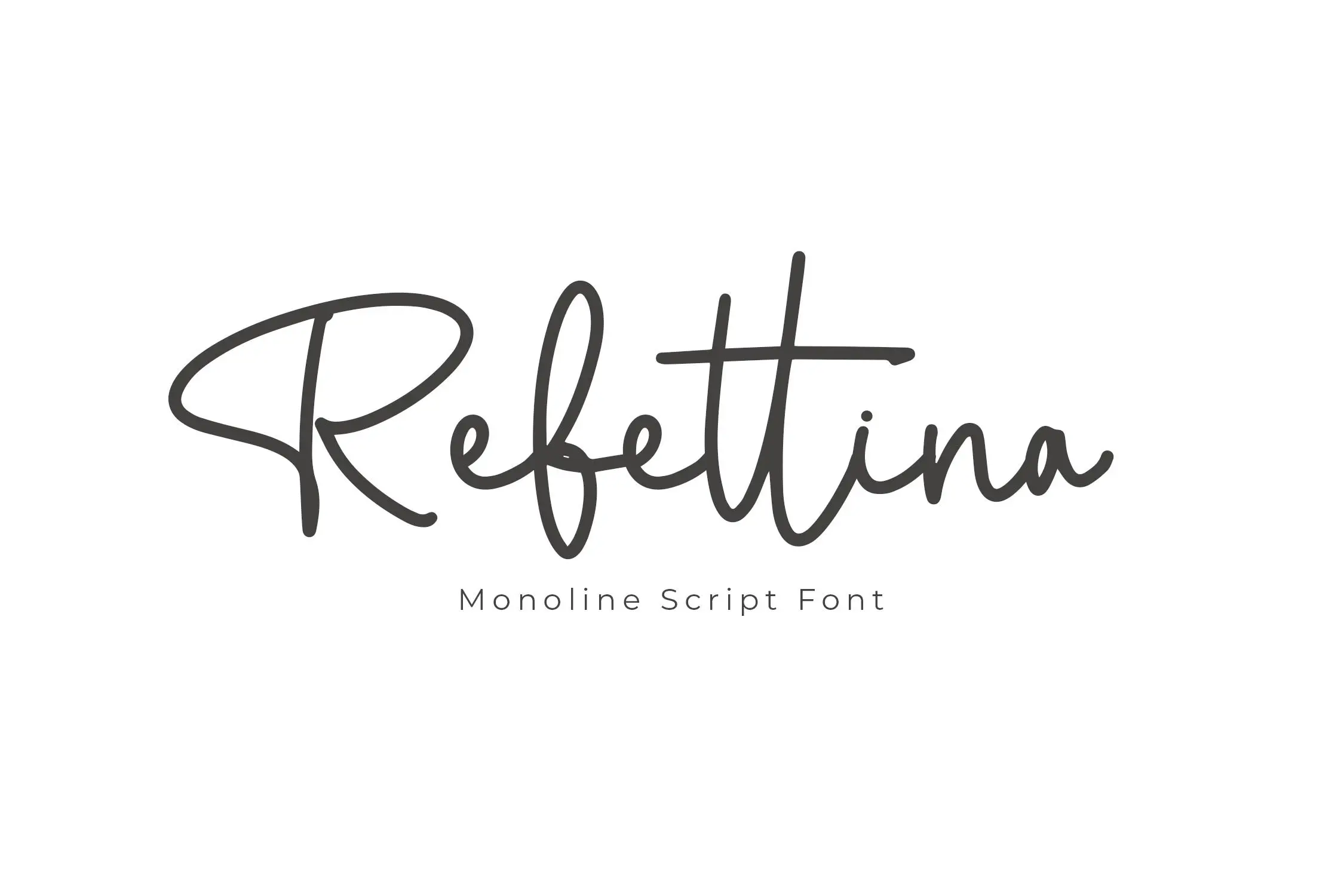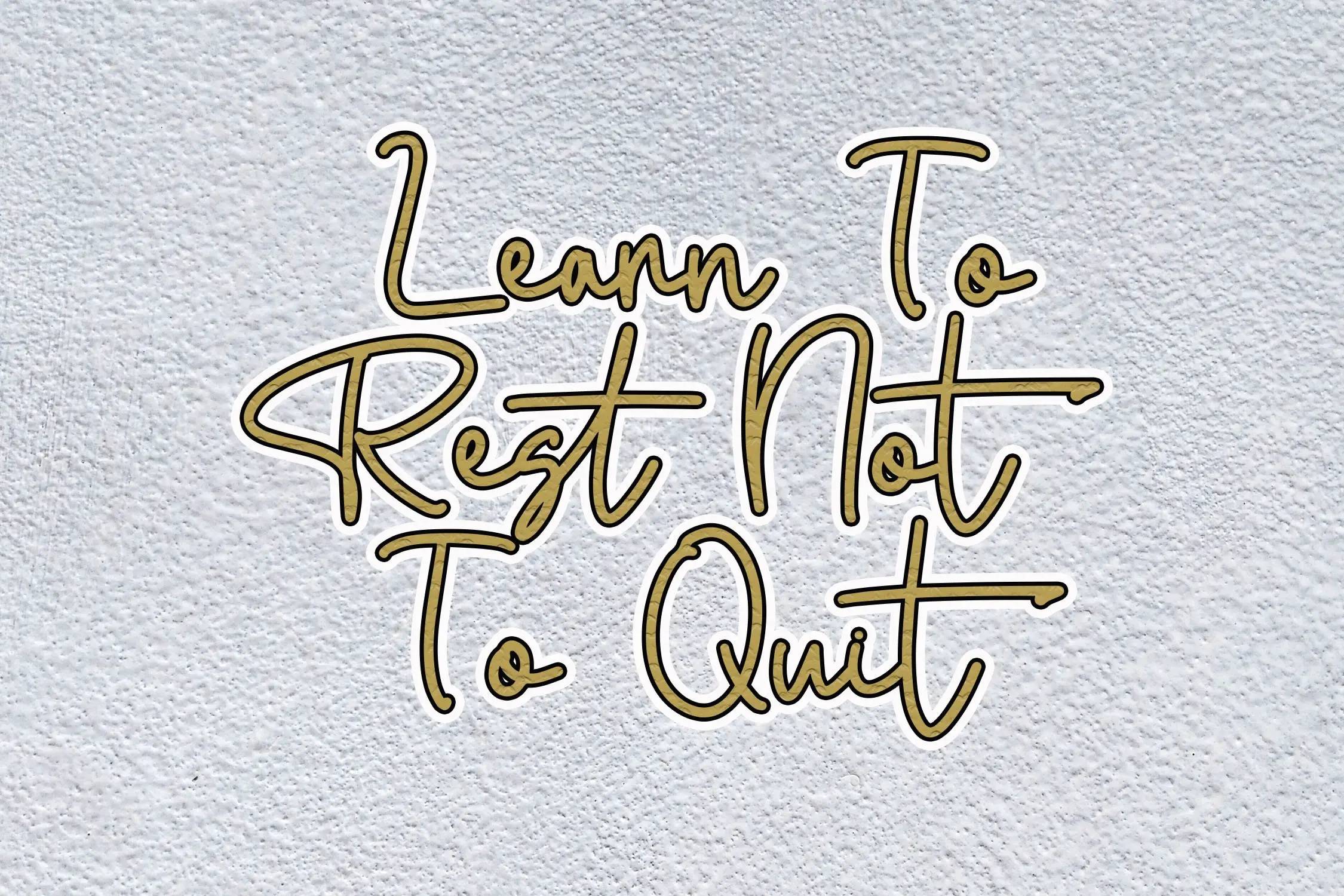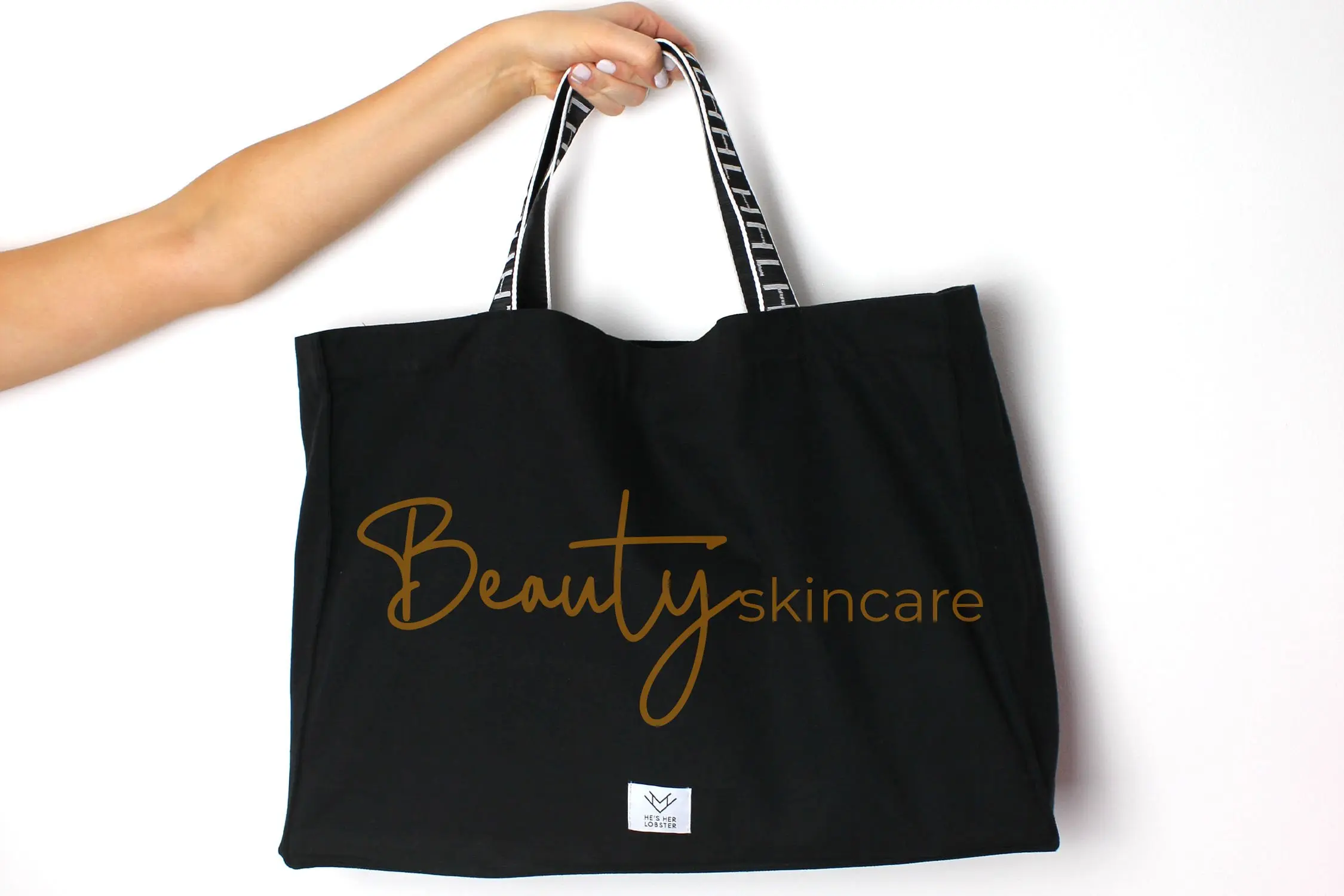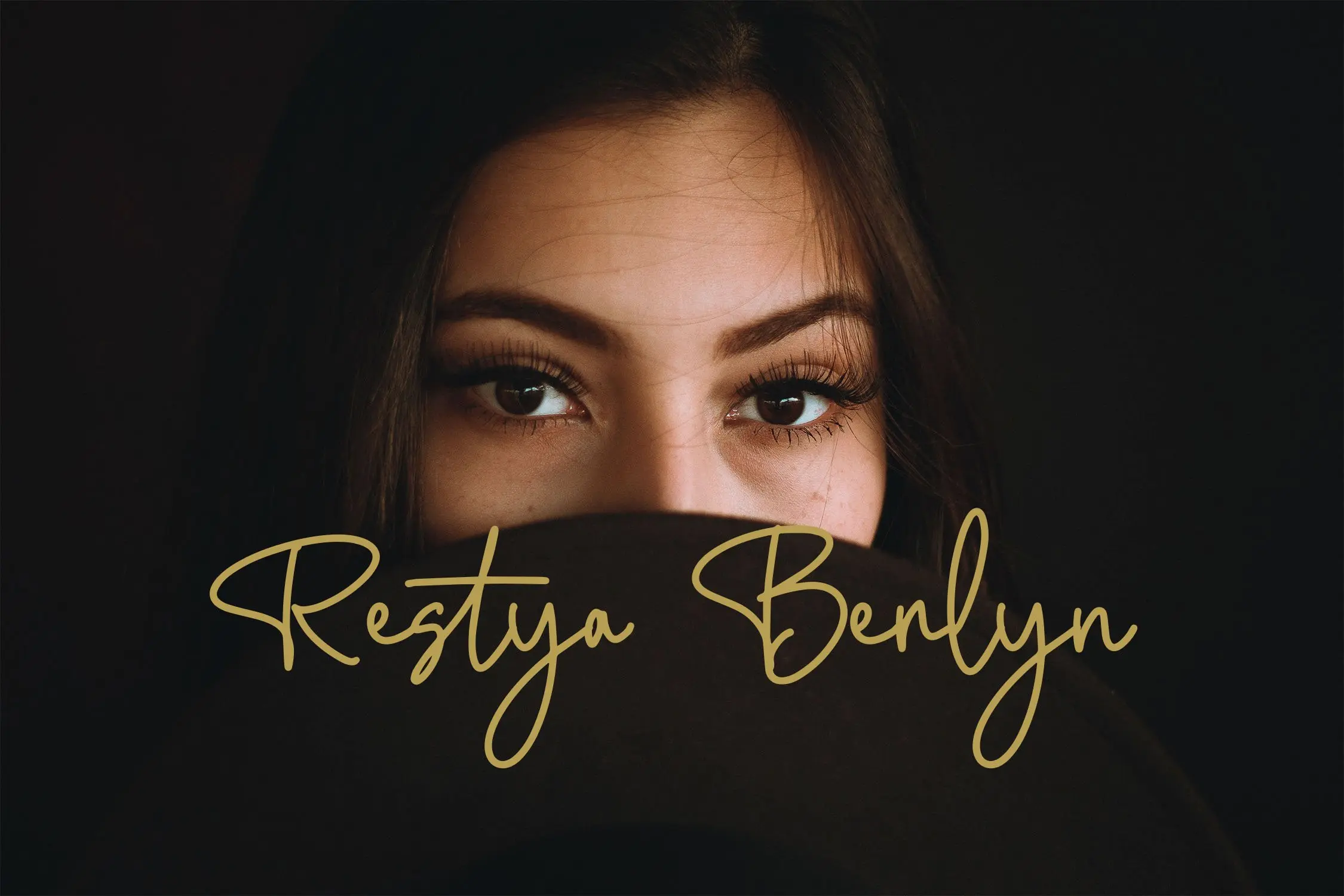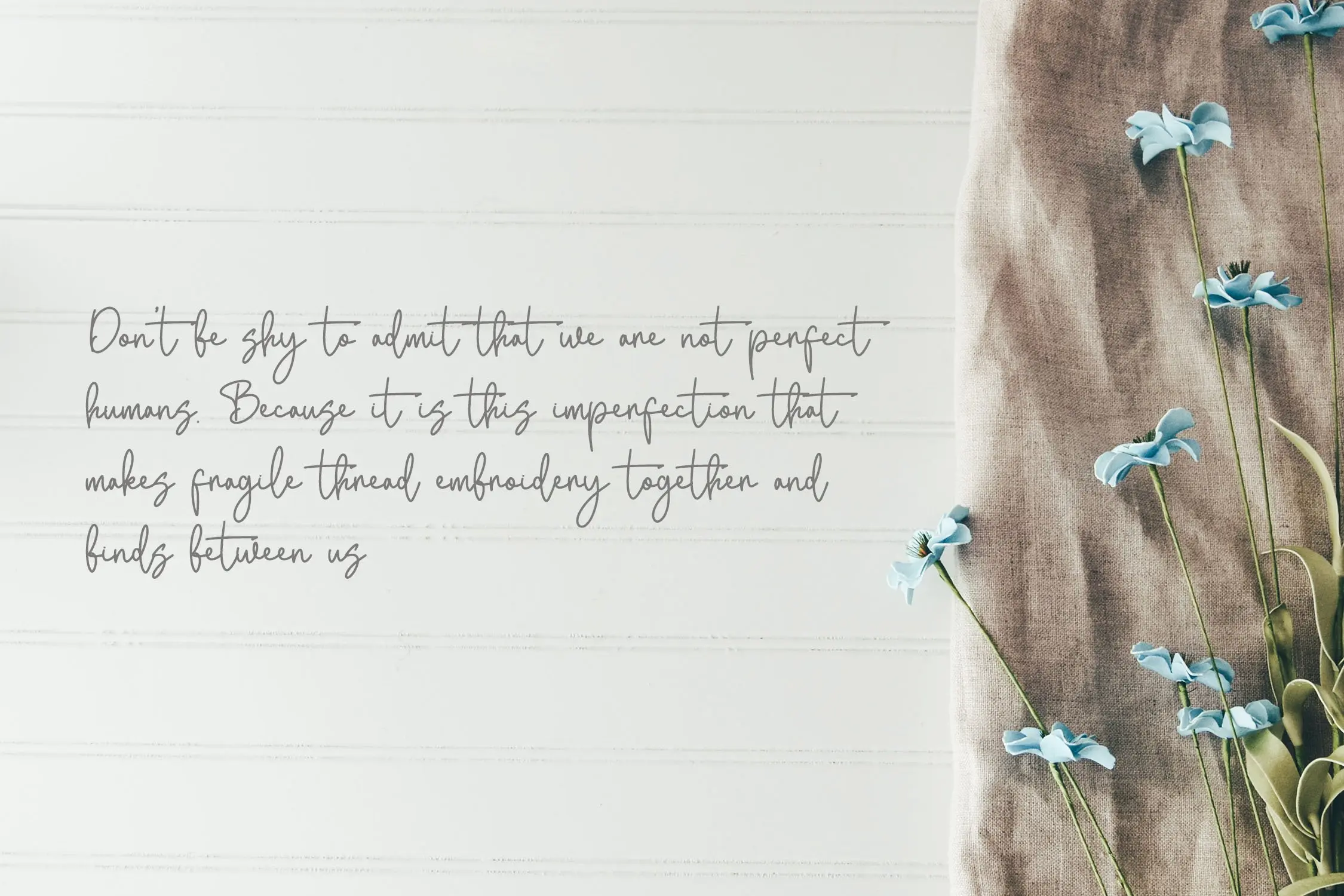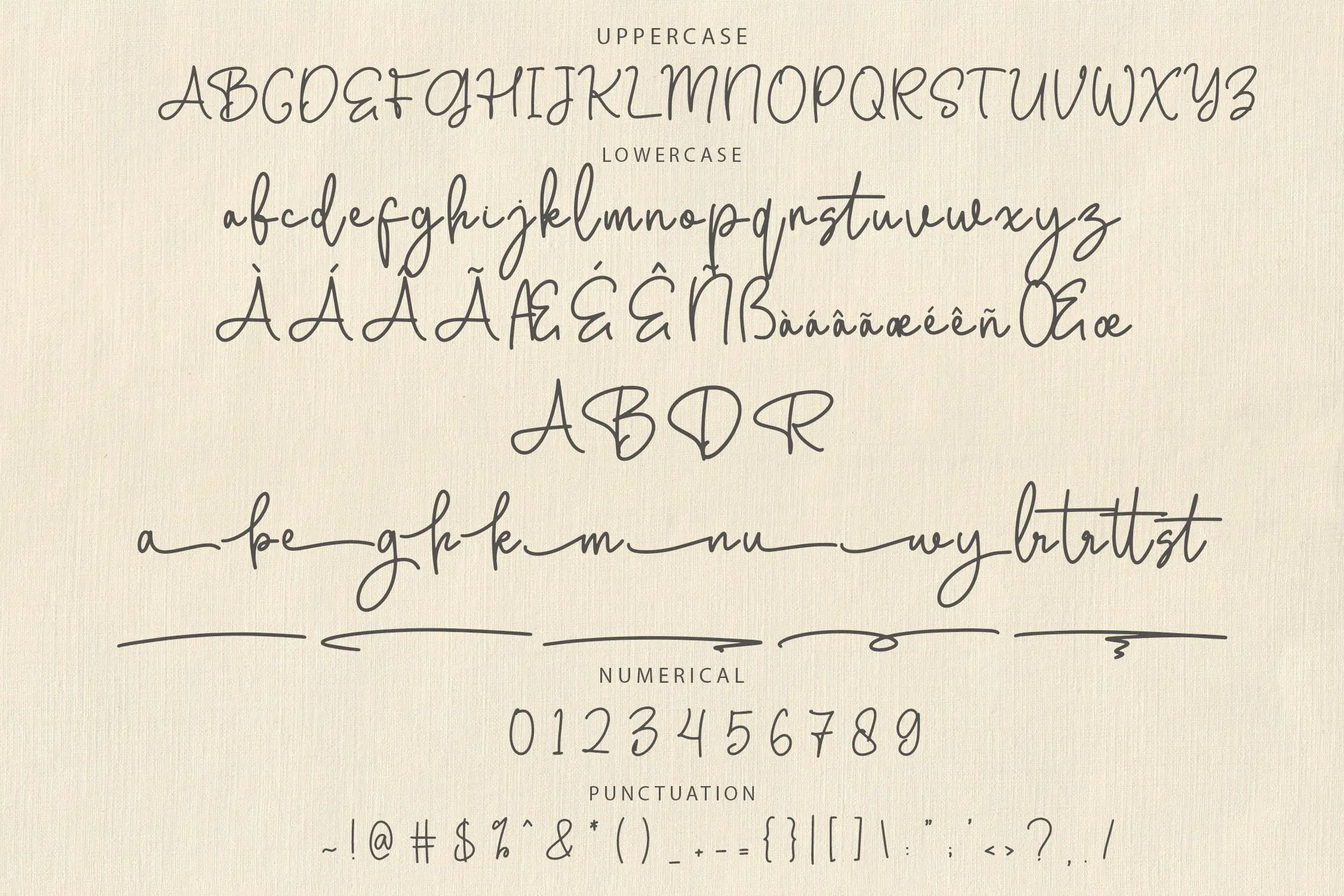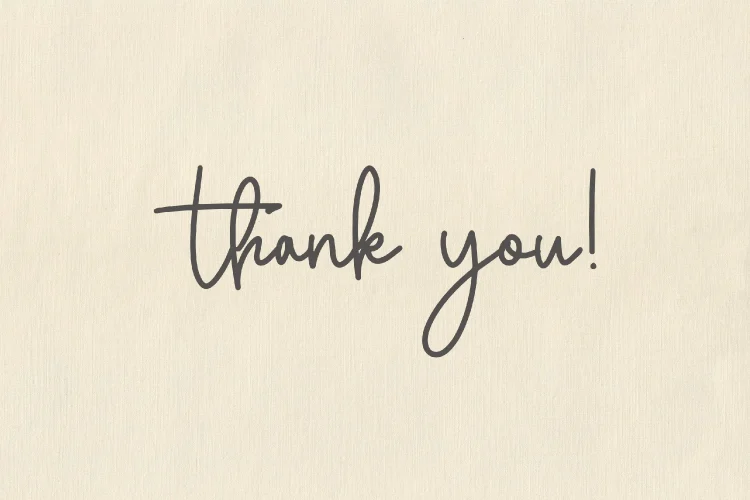
Rebettina
Rebettina – Elegant Monoline Script Font
Introducing Rebettina, a sophisticated script font with a stylish monoline signature feel. Crafted with unique, flowing characters, this font brings a uniqueness and refined touch to your designs, perfect for branding, logos, invitations, and more. Its smooth lines and elegant curves will enhance the visual appeal of any project.
• Includes ligatures, stylistic alternates, swashes
• Multilingual support for versatility
Elevate your designs with the graceful elegance of Rebettina monoline script font!